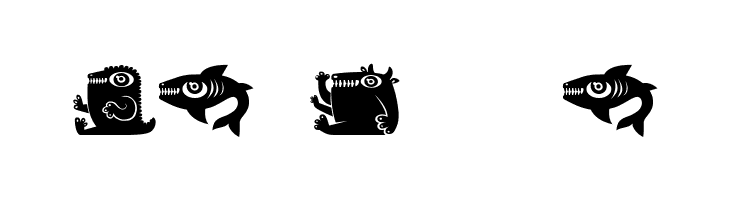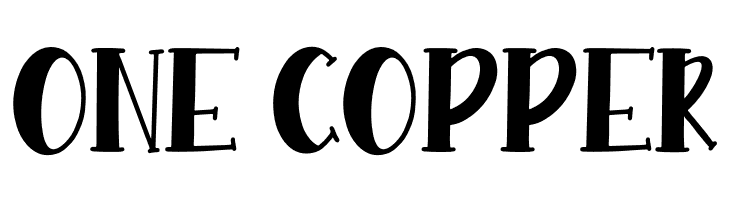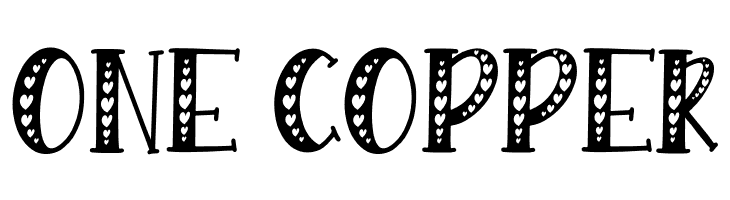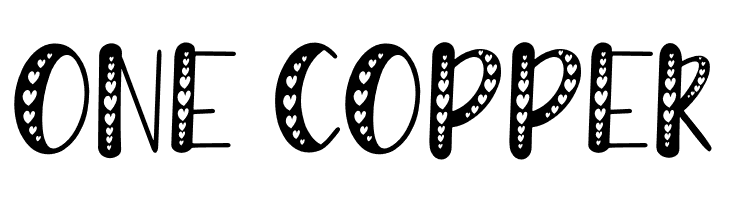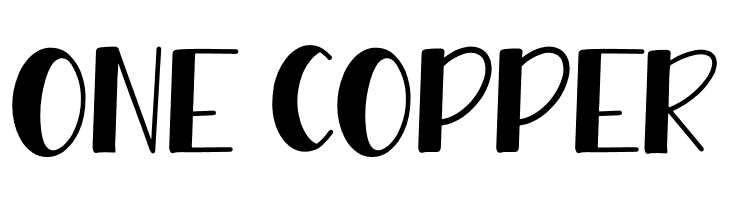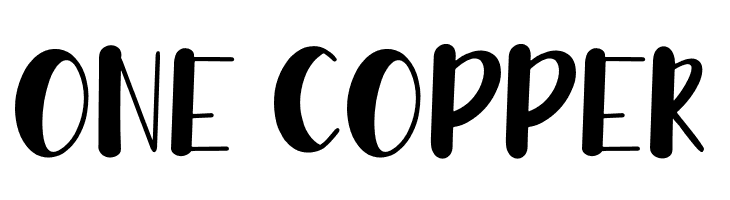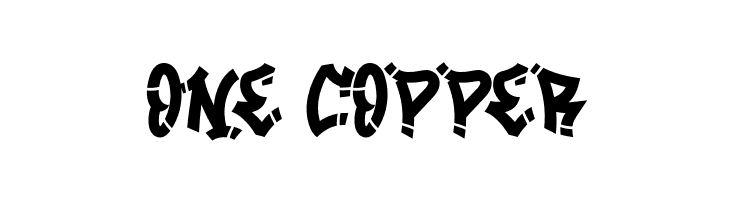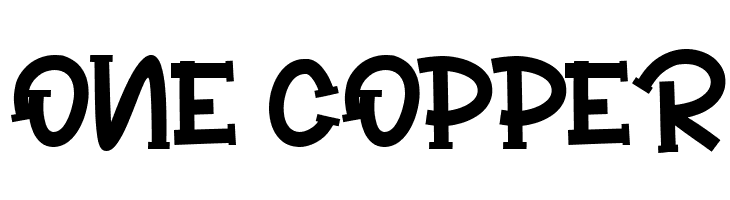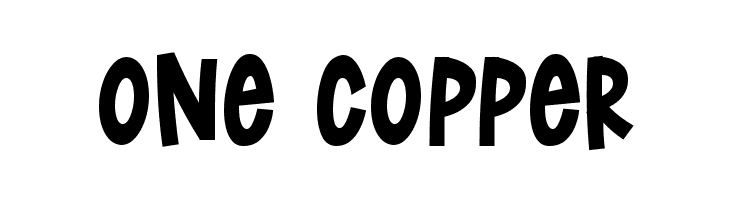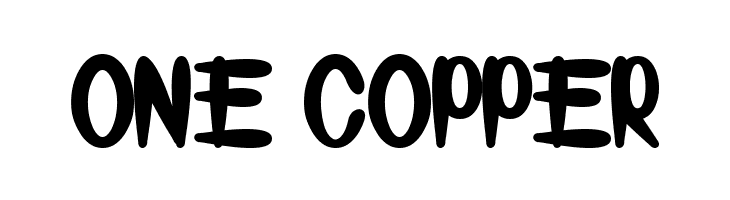
A bold, decorative font with elegant curves and a vintage charm.
A bold, playful script font with flowing cursive letters.
A playful, cartoon-like decorative font with unique creature designs for each character.
A bold, high-contrast font with elongated vertical strokes and sharp serifs.
A playful, bold font with thick, rounded characters and a whimsical style.
A bold, geometric stencil font with an industrial feel.
A bold, geometric stencil font with strong, angular shapes.
An elegant, flowing script font with smooth, cursive strokes.
A bold, graffiti-inspired font with sharp angles and an urban aesthetic.
A bold, graffiti-inspired font with sharp angles and dynamic style.
A playful, bold, and hand-drawn font with a whimsical style.
A bold, adventurous font with jagged, dynamic letterforms ideal for dramatic themes.
A bold, three-dimensional font with overlapping outlines and an urban, graffiti-inspired style.
An elegant, flowing script font with smooth, cursive strokes.
A flowing, cursive font with elegant, connected characters and subtle flourishes.
An elegant script font with flowing, cursive style and intricate flourishes.
An elegant script font with flowing, interconnected letters and high contrast strokes.
An elegant, flowing script font with ornate swashes and graceful loops.
A bold, energetic handwritten font with dynamic strokes.
A cursive, handwritten font with elegant and flowing lines.
A graceful script font with flowing, connected strokes and elegant curves.
A flowing, cursive font with elegant curves and a handwritten aesthetic.
A playful, bold, and handwritten-style font with a whimsical touch.
A playful, casual handwritten font with smooth curves and a slightly slanted style.
A playful and bold font with whimsical curves and dynamic strokes.
A decorative font with heart-shaped cutouts, perfect for romantic and playful designs.
A playful, bold script font with a hand-drawn, dynamic style.
A playful, heart-filled decorative font with bold, rounded letters.
A playful, bold, hand-drawn font with dynamic strokes and whimsical flourishes.
A cursive, handwritten font with elegant loops and swashes.
A graceful script font with fluid, connected strokes and elegant curves.
A playful, handwritten-style font with bold, rounded characters.
A playful, handwritten font with bold, irregular strokes and whimsical details.